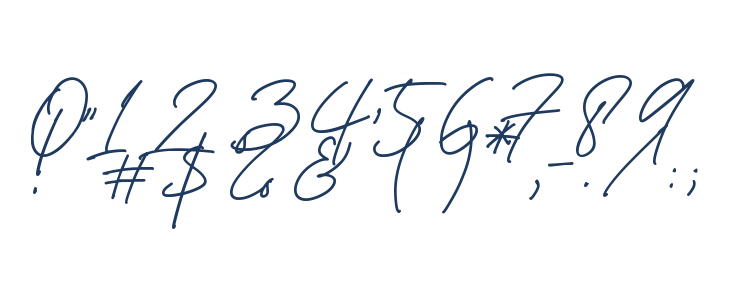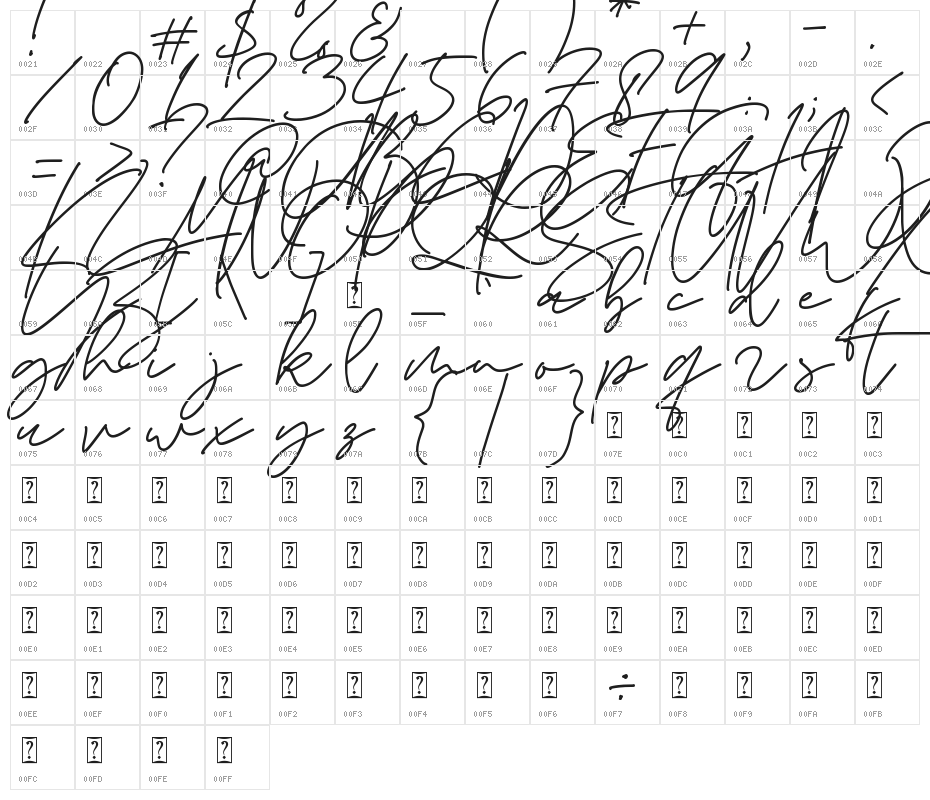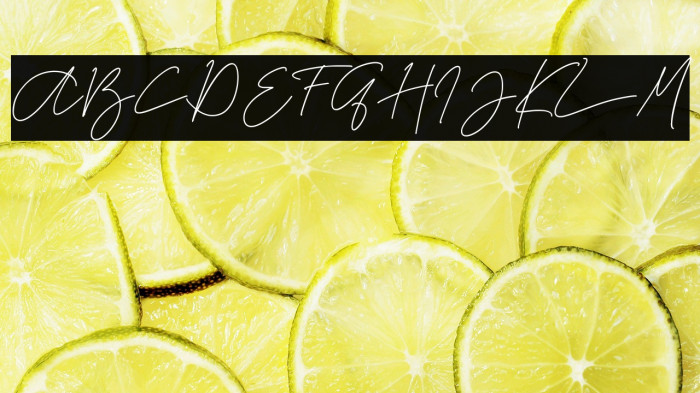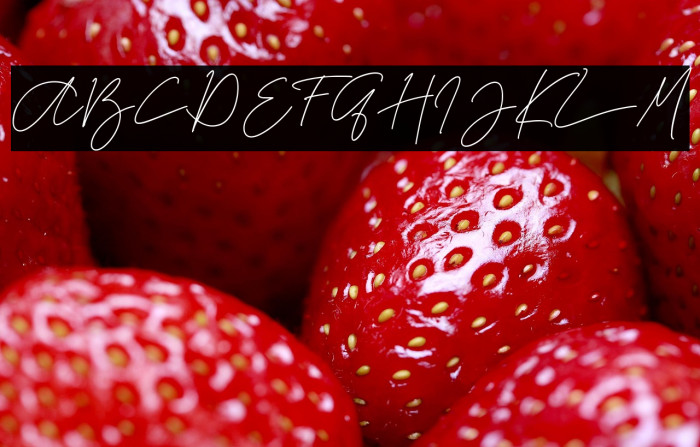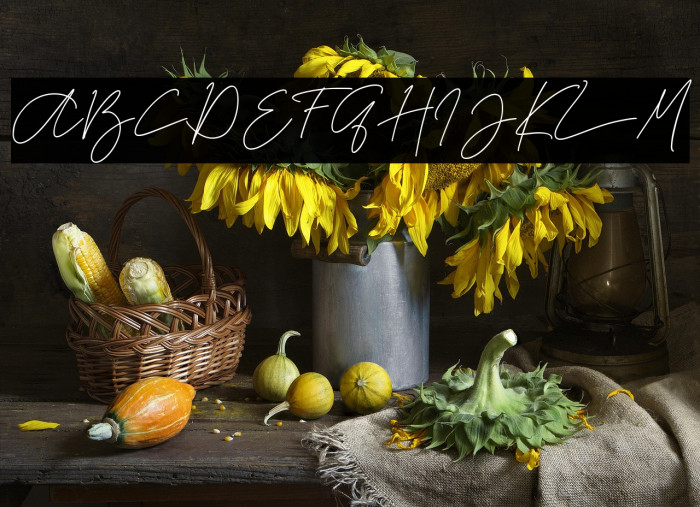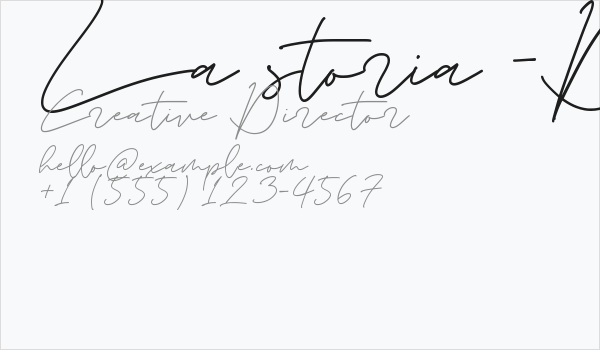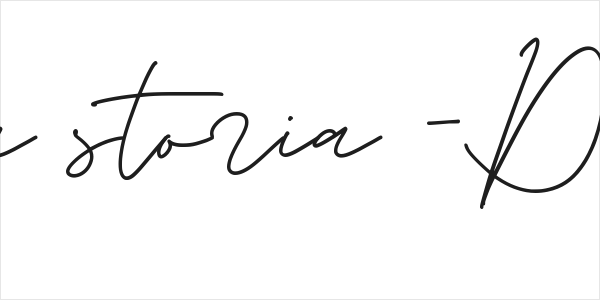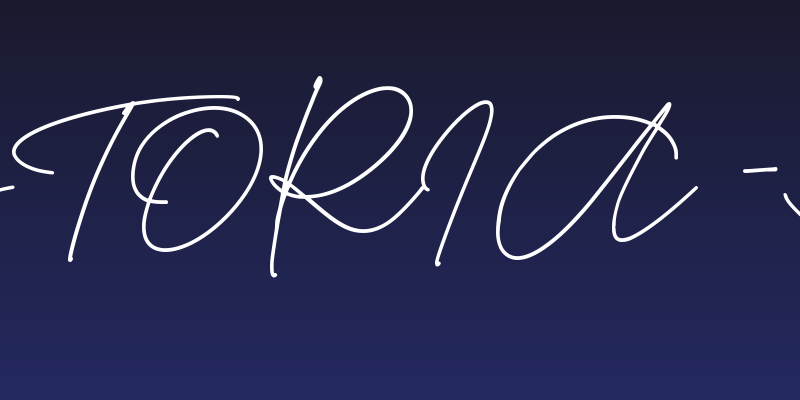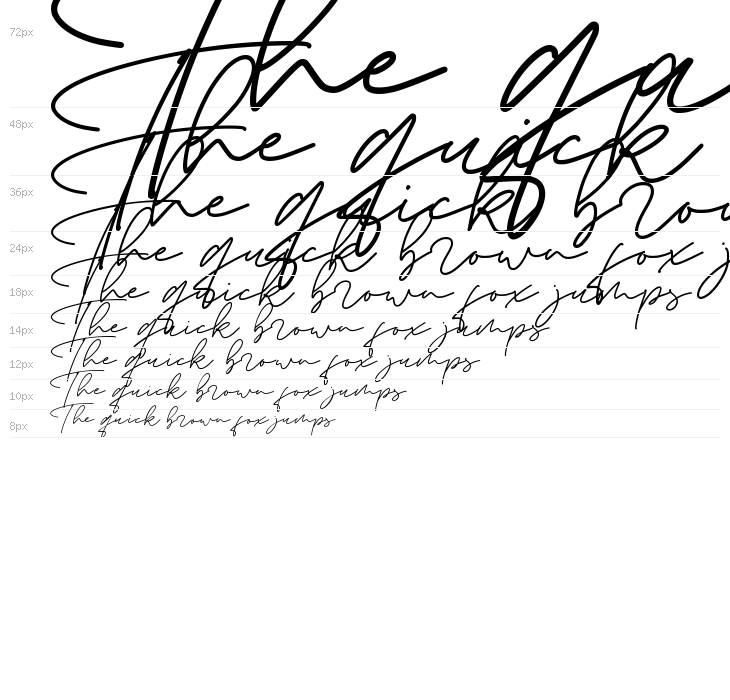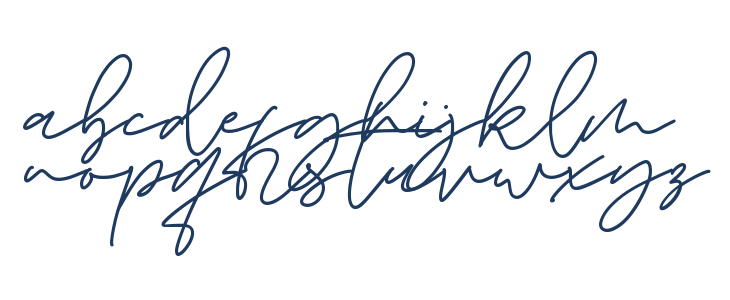
This font exudes a sense of elegance and fluidity, characterized by its cursive, handwritten style. The uppercase letters are slender and elongated, giving a sophisticated and airy feel. The lowercase letters are more compact, with smooth, flowing connections that mimic natural handwriting. The numerals maintain the same fluidity, ensuring consistency throughout the typeface. Special characters are seamlessly integrated, enhancing the font's versatility. The overall appearance is both modern and timeless, making it suitable for a variety of creative projects.
| Overall Style | Elegant, Modern |
| Proposed Projects | Ideal for wedding invitations, personal branding, greeting cards, and elegant packaging designs. |